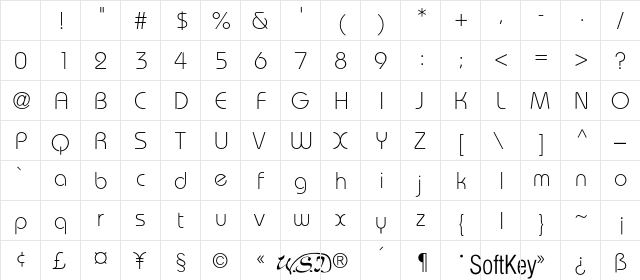
Complete Bordeaux Light glyph index. Displaying only characters natively supported by Bordeaux Light font.
Bordeaux is a composed and adaptable typeface that performs quietly and consistently across a wide range of design contexts. Its slender proportions lend an understated elegance to any composition.